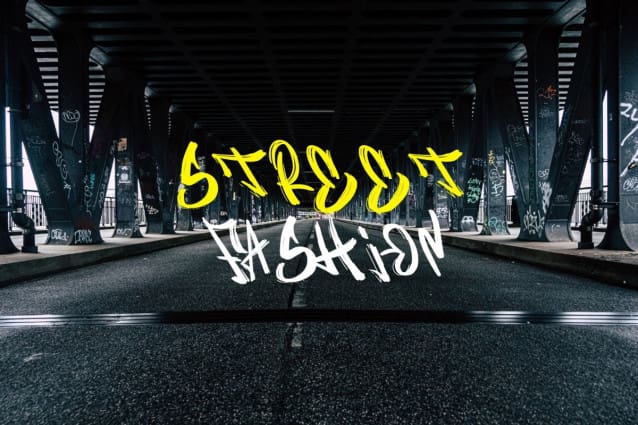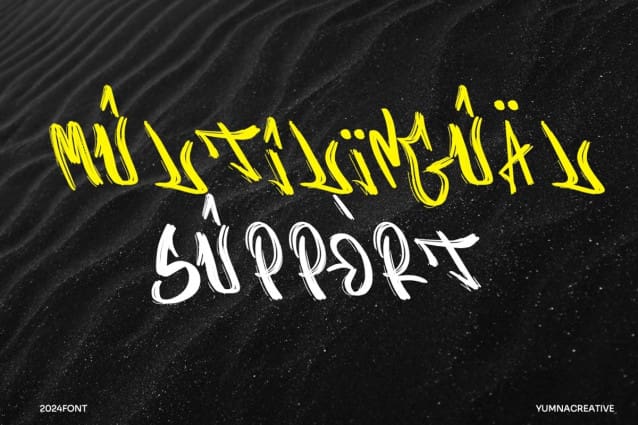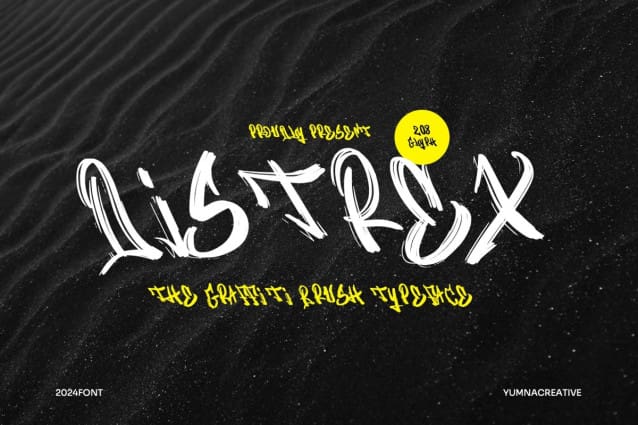
Distrex Graffiti Urban Font
Distrex Graffiti Urban Font is a bold and dynamic urban graffiti font with a street-style vibe. Its expressive, spray-paint-inspired letters make it perfect for designs that need an edgy, creative touch.